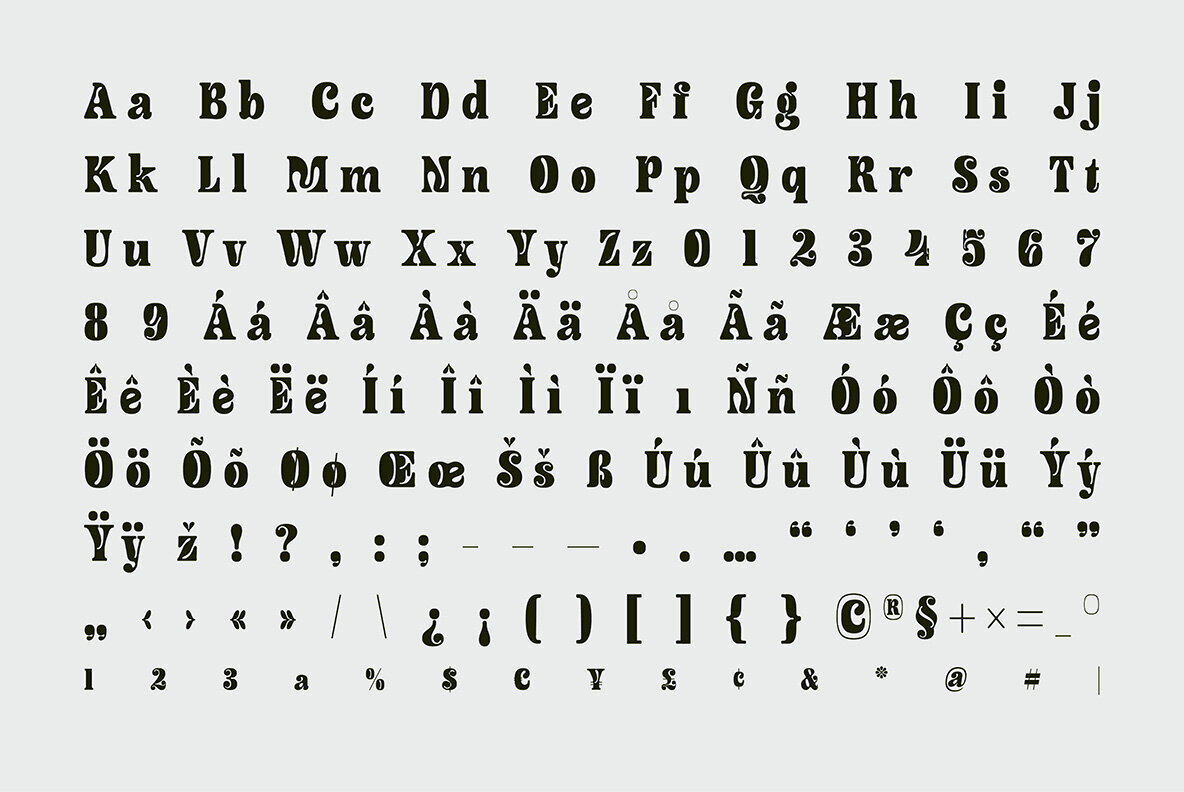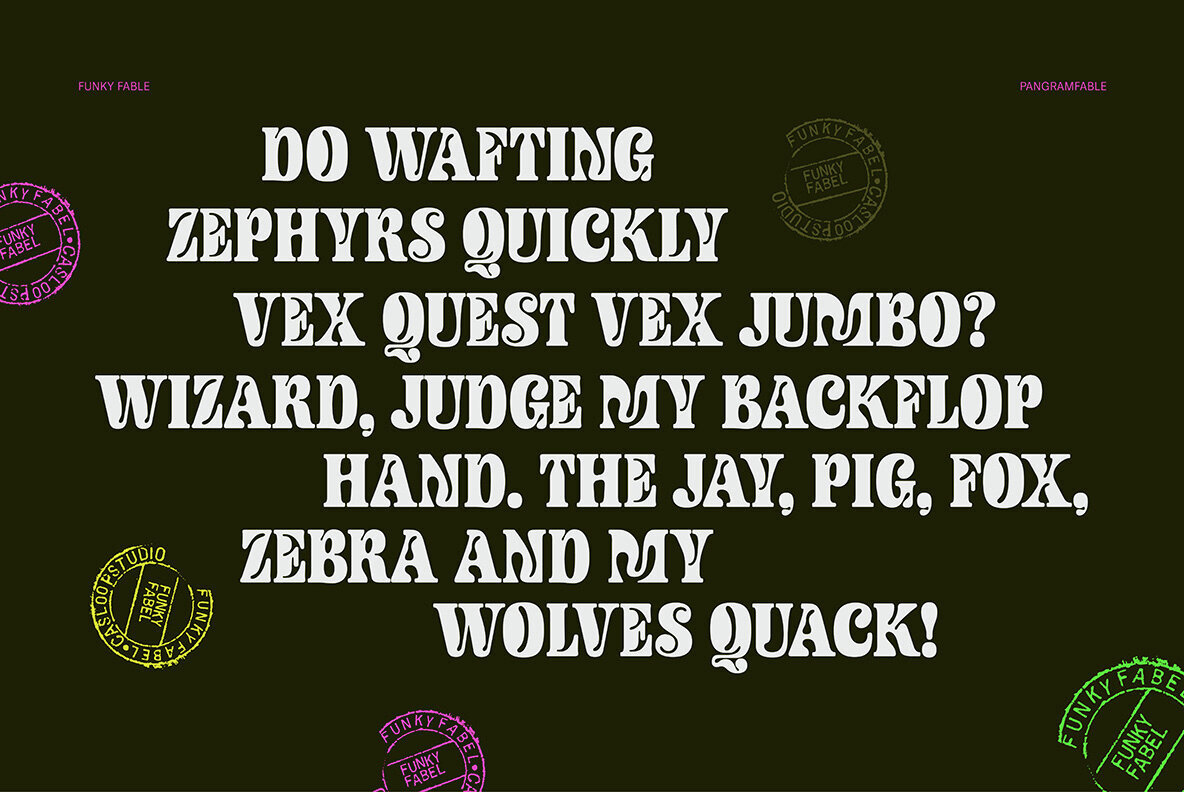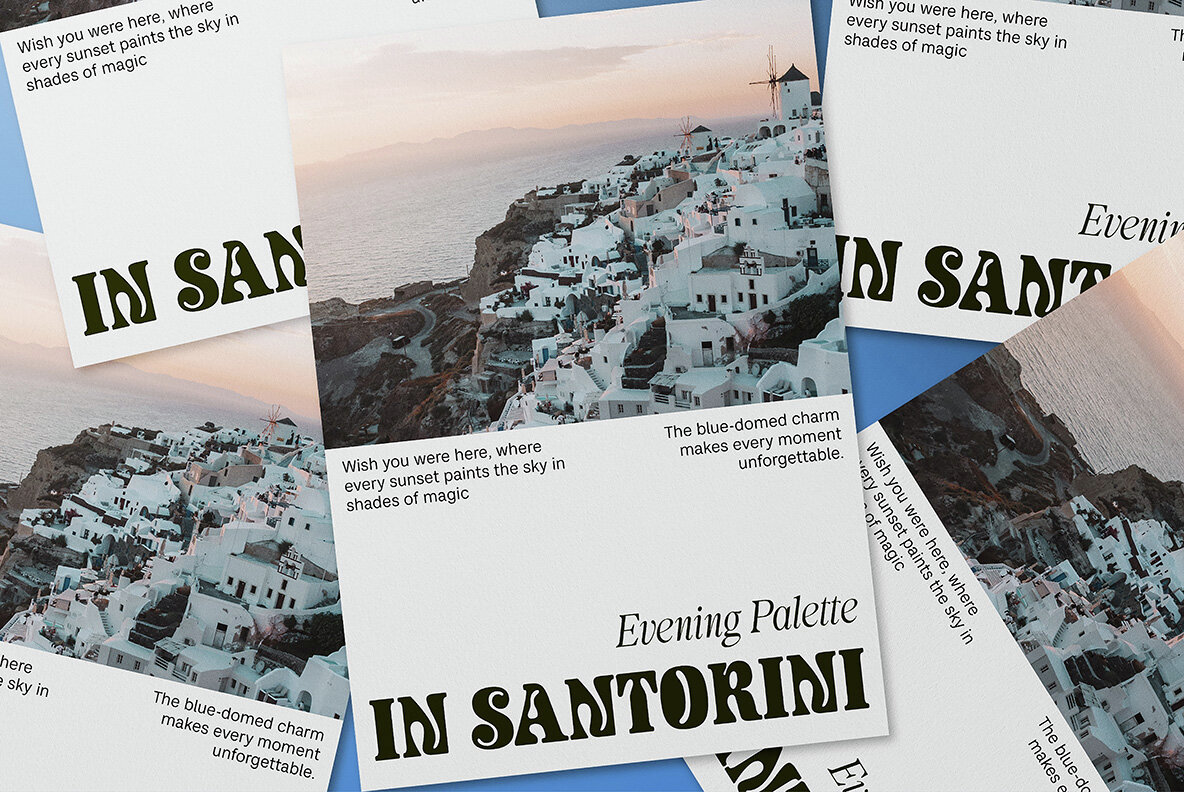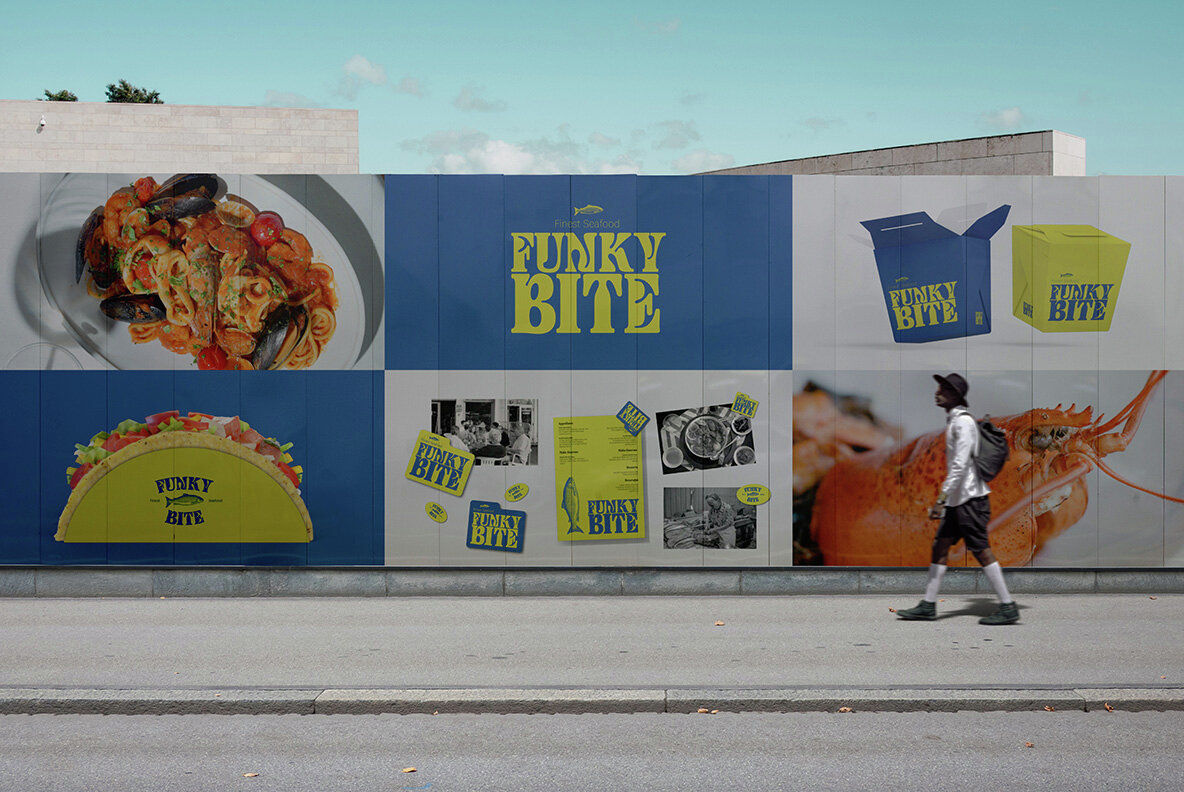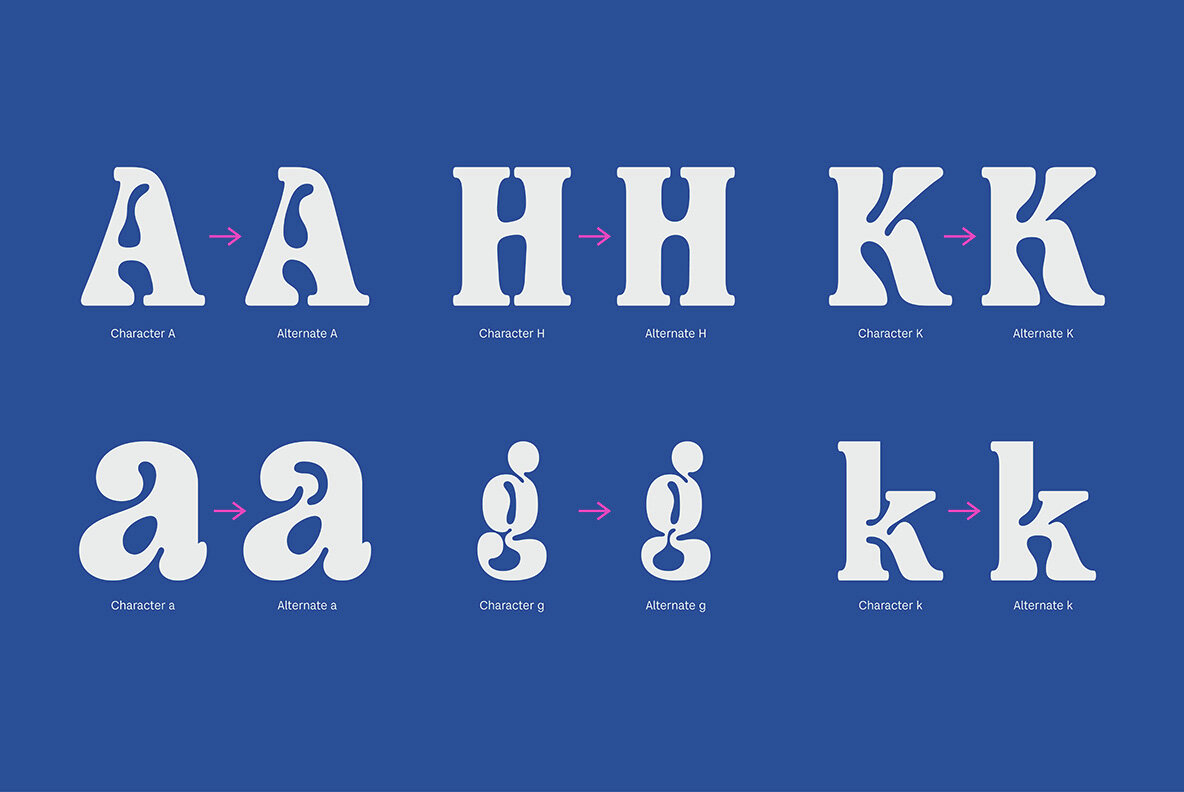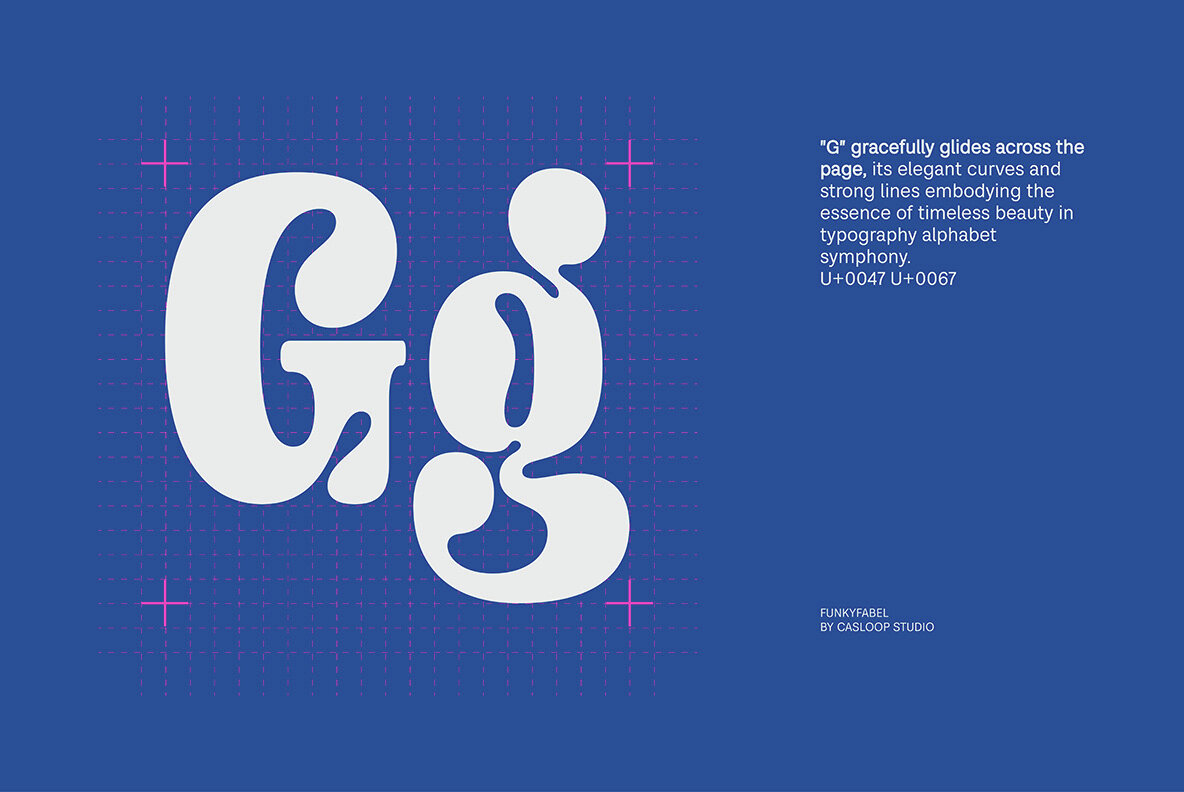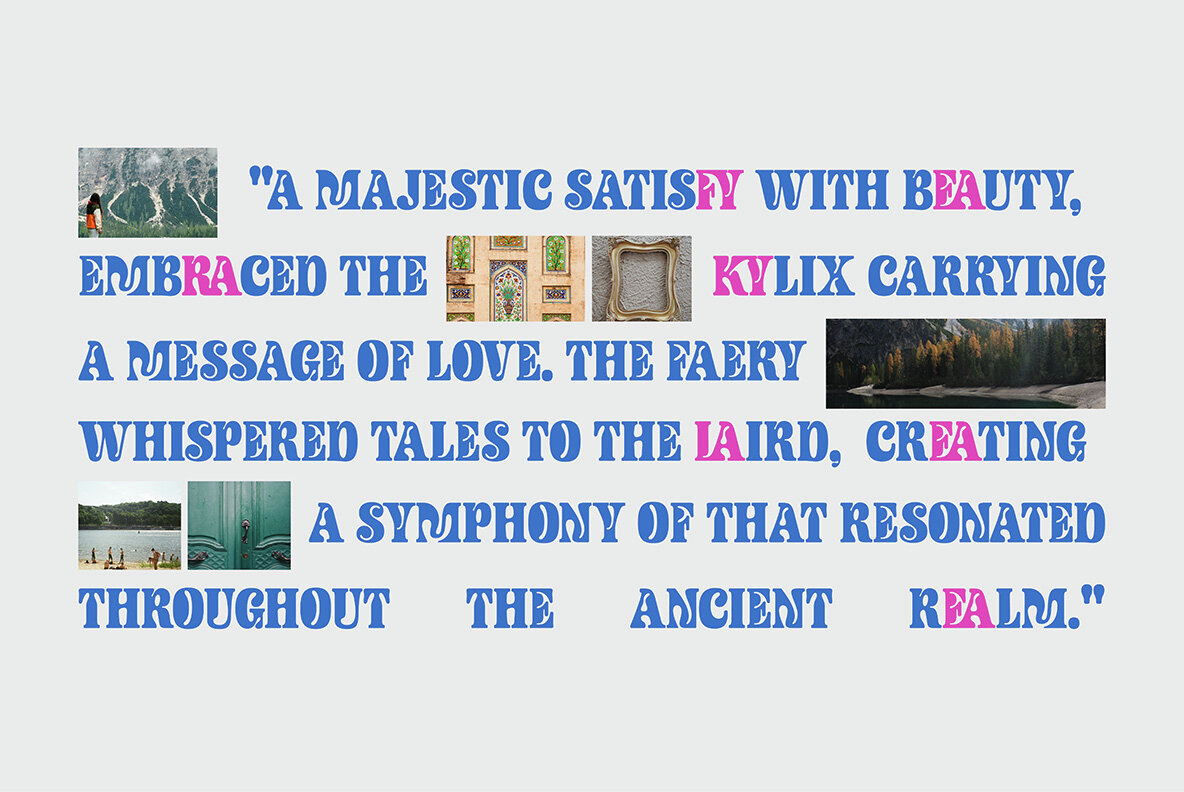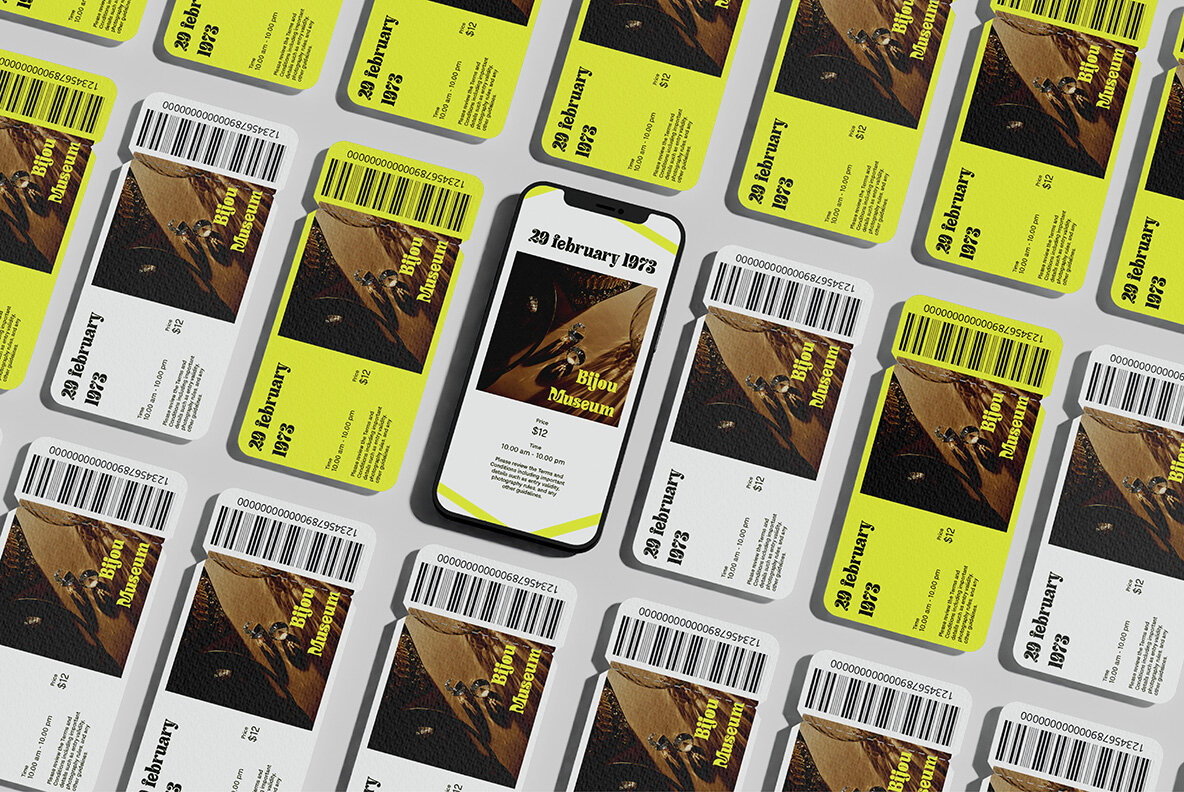
Funky Fable by Casloop Studio is a captivating typeface that weaves together diverse influences, encapsulating the essence of romance, celebration, and creativity. With its eclectic blend of design elements, this font is perfectly suited for Valentine's Day or any joyous occasion. Funky Fable uniquely fuses whimsical, retro, and kinetic styles. Inspired by an array of sources like Chinese calligraphy, cinematic aesthetics, and the cultural roots of Brittany, Funky Fable tells a visual tale of love and connection. Its acid-inspired colors and bold strokes exude vibrant energy, embodying the excitement of celebration. Infused with astrological mystique, the characters in Funky Fable dance across the canvas, creating a cosmic harmony that mirrors the patterns of the stars. The cursive elements elegantly intertwine, akin to constellations gracing the night sky. This premium font transcends conventional design, offering an anamorphic and dada-inspired twist. It invites freeform expressiveness, blending Ashford's sophistication with playful quirks for a dynamic design. Funky Fable supports a wide range of languages including Bosnian, Catalan, Czech, Danish, German, English, Spanish, Estonian, Finnish, French, Breton, Irish, Croatian, Hungarian, Icelandic, Italian, Lithuanian, Latvian, Maltese, Dutch, Norwegian, Polish, Portuguese, Romanian, Slovak, Slovenian, Albanian, Swedish, and Turkish.Funky Fable: A Whimsical Fusion Typeface